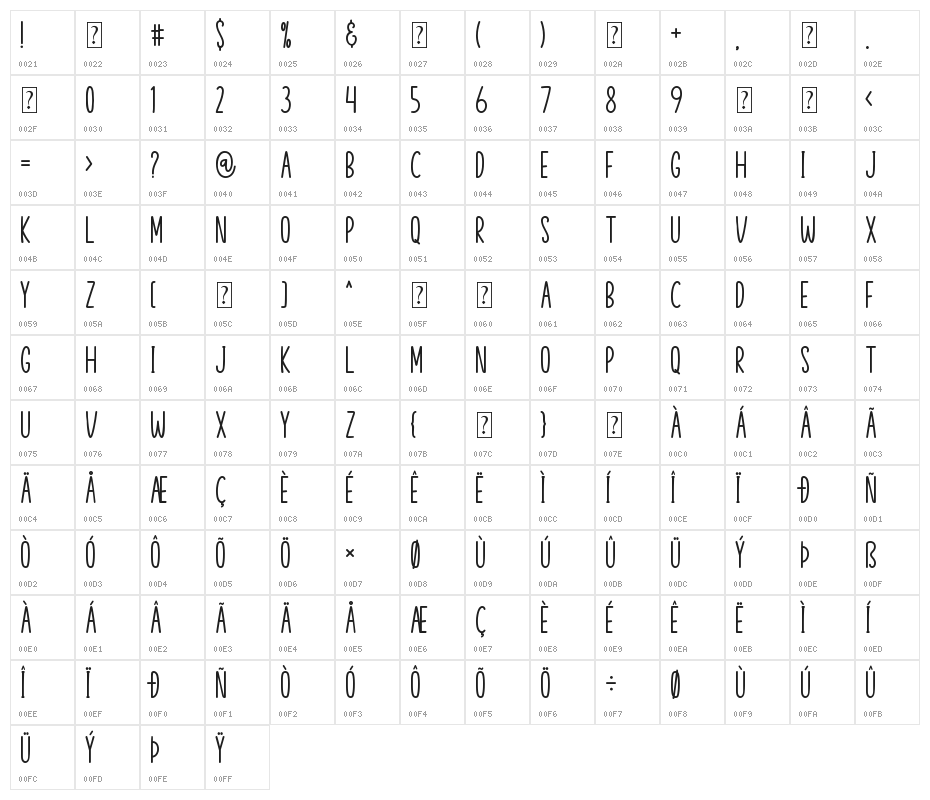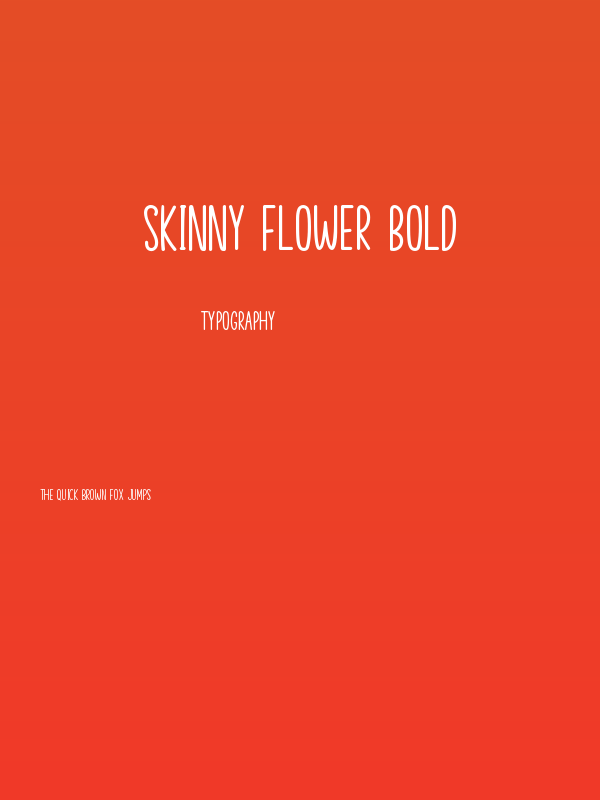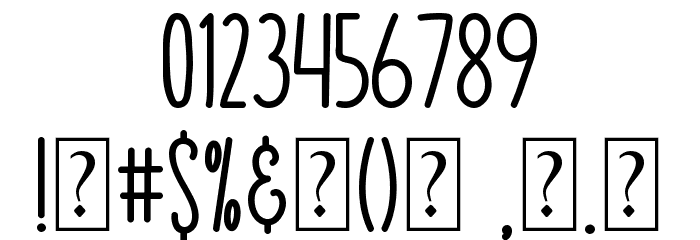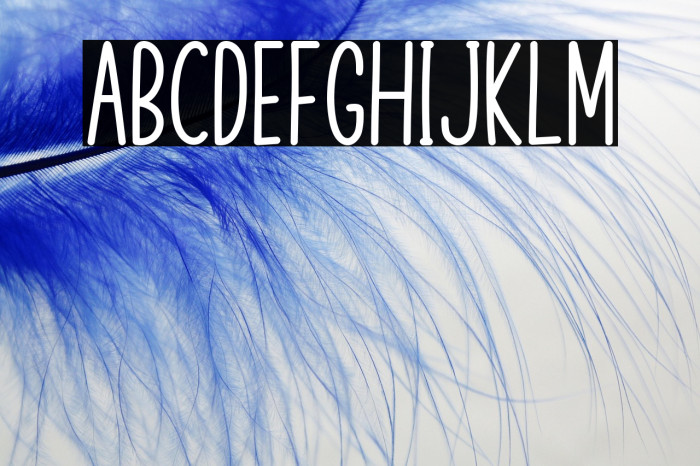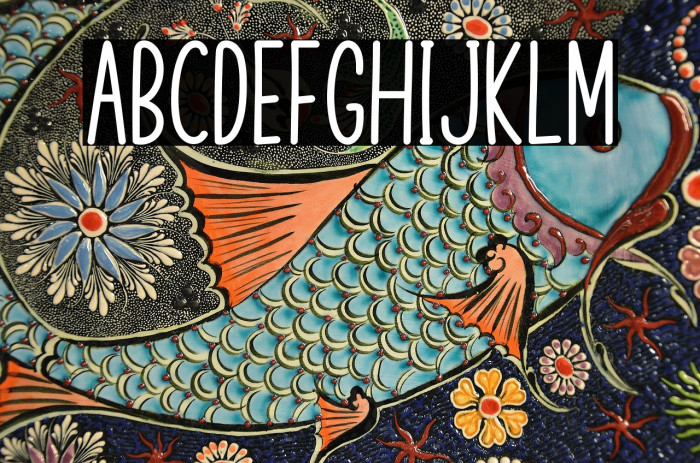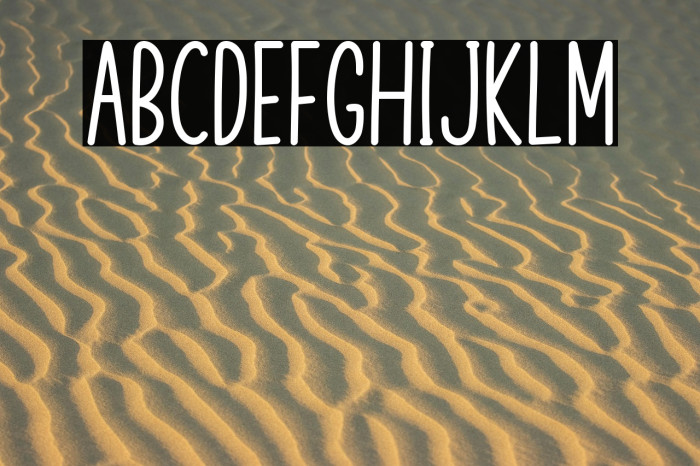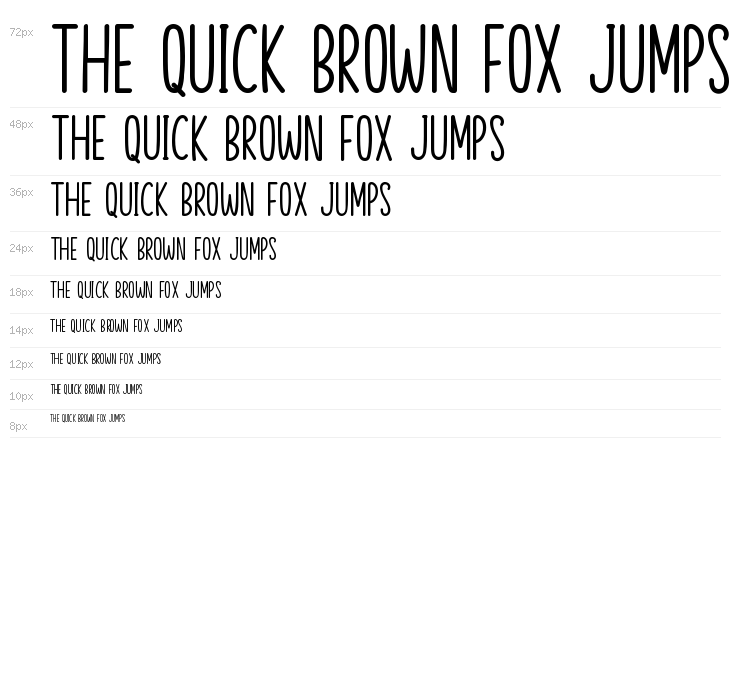
Skinny Flower Bold Font
Skinny Flower Bold Description
This font features tall, slender characters with a playful and casual appearance. The letters are evenly spaced, maintaining a clean and organized look. The strokes are consistent in width, giving it a uniform and cohesive style. The font includes both uppercase and lowercase letters, numbers, and a variety of special characters. Its design is simple yet distinctive, making it suitable for various creative applications. The overall style is modern and approachable, with a touch of whimsy that adds character to any project.
| Proposed Projects | Ideal for greeting cards, children's books, playful branding, and social media graphics. |